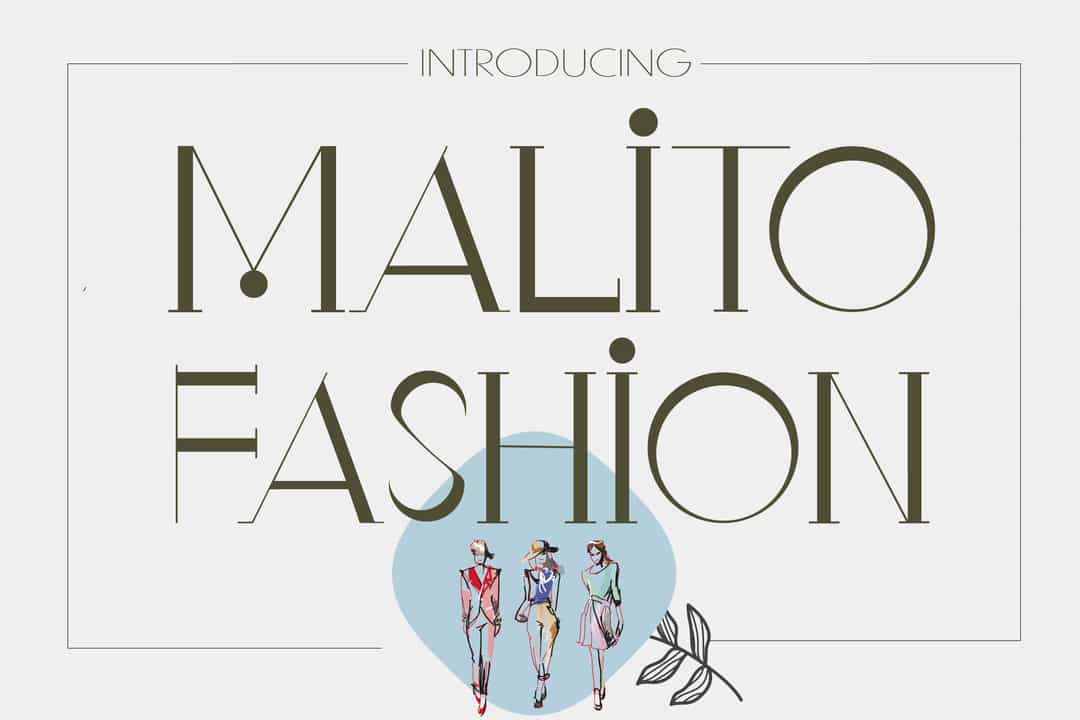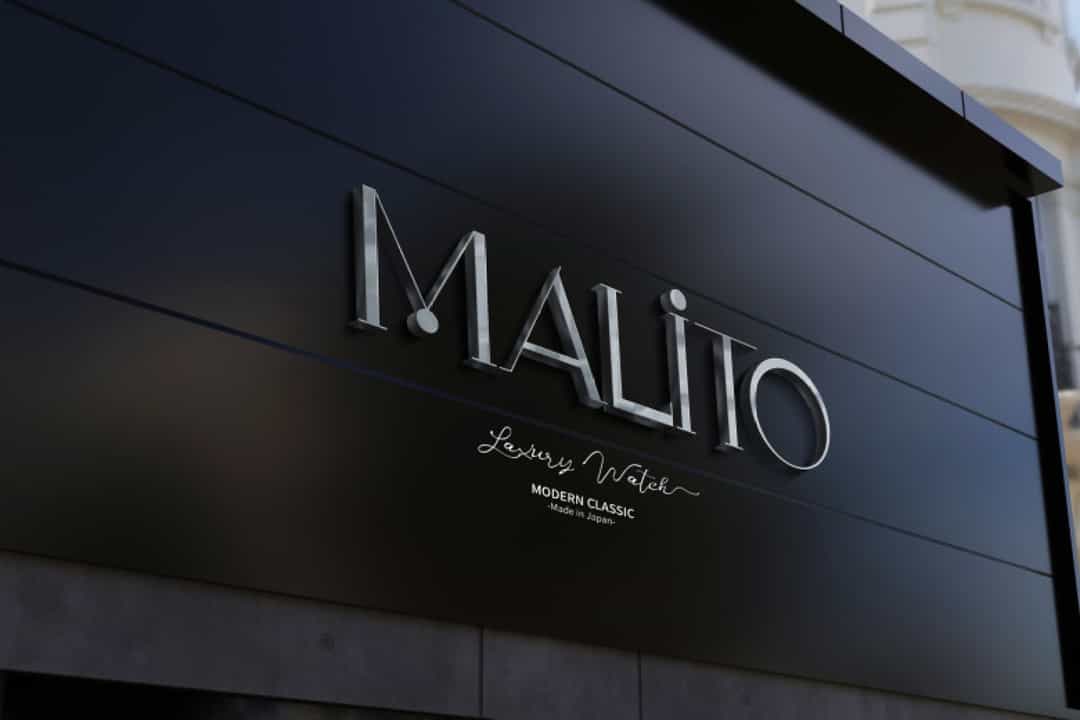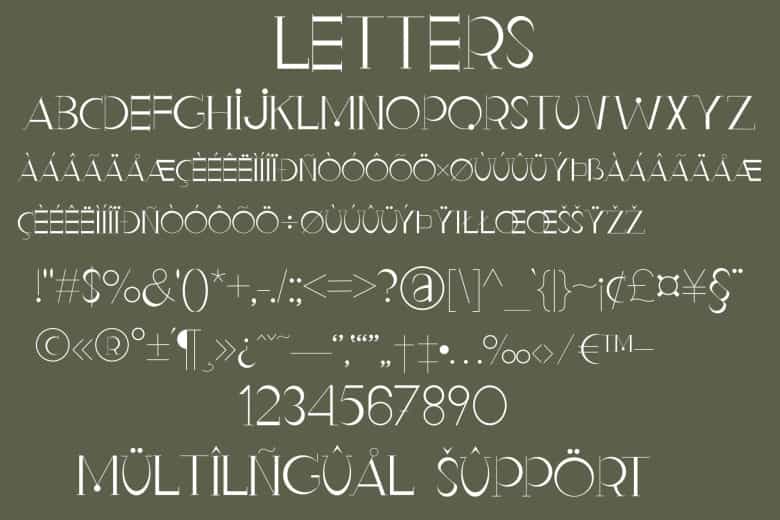
Malito Fashion Font is an eye-catching thin serif typeface, distinguished by its thin lines and graceful elegance. Perfect for fashion branding or editorial designs, use Malito in your designs today – you won’t be disappointed by its results!